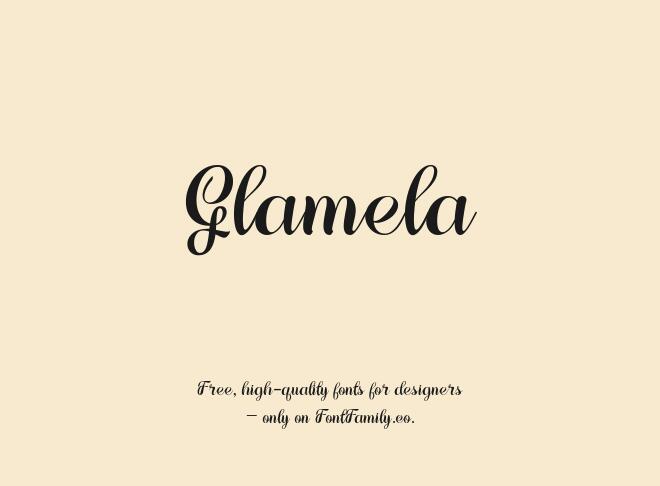
Glamela Font
Glamela Font is a modern and playful script font with a touch of elegance. Designed by Glamela, it is a perfect blend of contemporary style and handwritten charm. Its fluid curves and well-balanced lines make it a great choice for a wide range of design projects. Glamela Font is particularly suited to branding, logo designs, social media graphics, and wedding invitations. Its clean and crisp design sets it apart from traditional handwritten fonts, while its unique character shapes give it a distinctive edge. It's free for personal use, making it a great asset for designers looking to add a touch of sophistication to their projects. With Glamela Font, your design will not only look stunning but also convey a sense of elegance and modernity.